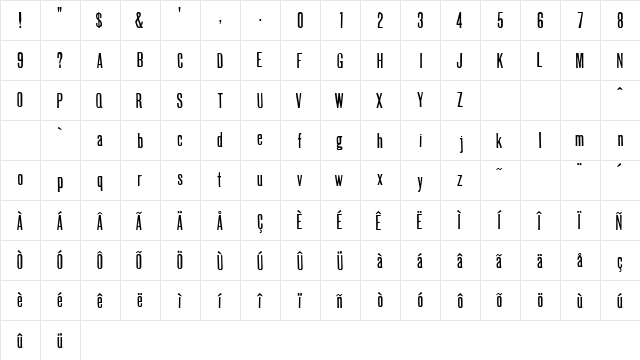
Gothic Compressed HPLHS
Design Context for Gothic Compressed Typeface
Gothic Compressed takes a clean, functional approach — its unadorned letterforms prioritise legibility and work reliably across screen and print environments.
Font Pairing: Works well alongside a characterful serif or display font that can carry the expressive load while Gothic Compressed handles the functional copy.
Pro Tip: Use Gothic Compressed for UI labels, navigation, and short-form body copy where clean legibility is the priority.